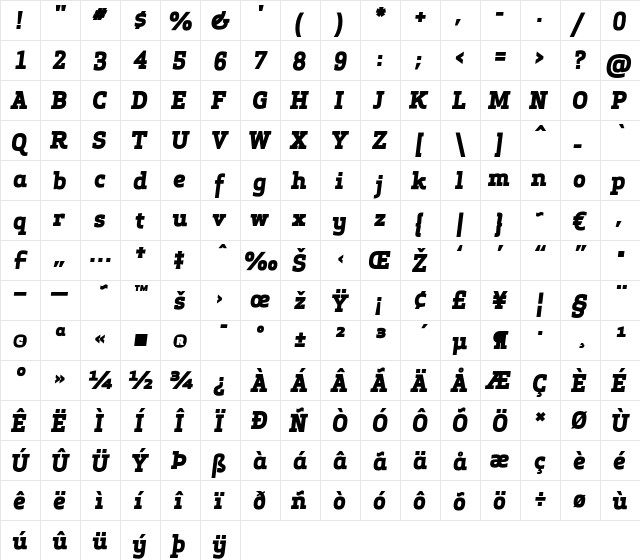
Apex Serif Extra Bold Italic Regular Font Preview
Design Context for Apex Serif Extra Bold Italic Typeface
Apex Serif Extra Bold Italic brings classic typographic sensibility to the table — its serifs and measured letterforms reflect centuries of print heritage. The dynamic lean of this cut emphasises speed and emphasis in any layout. The heavy weight commands attention and anchors typographic hierarchies.
Pro Tip: Use Apex Serif Extra Bold Italic for editorial body copy and considered headline work. Pair with a neutral sans for UI elements or captions to create a classic hierarchy.